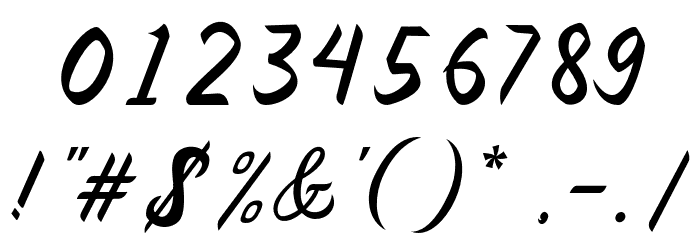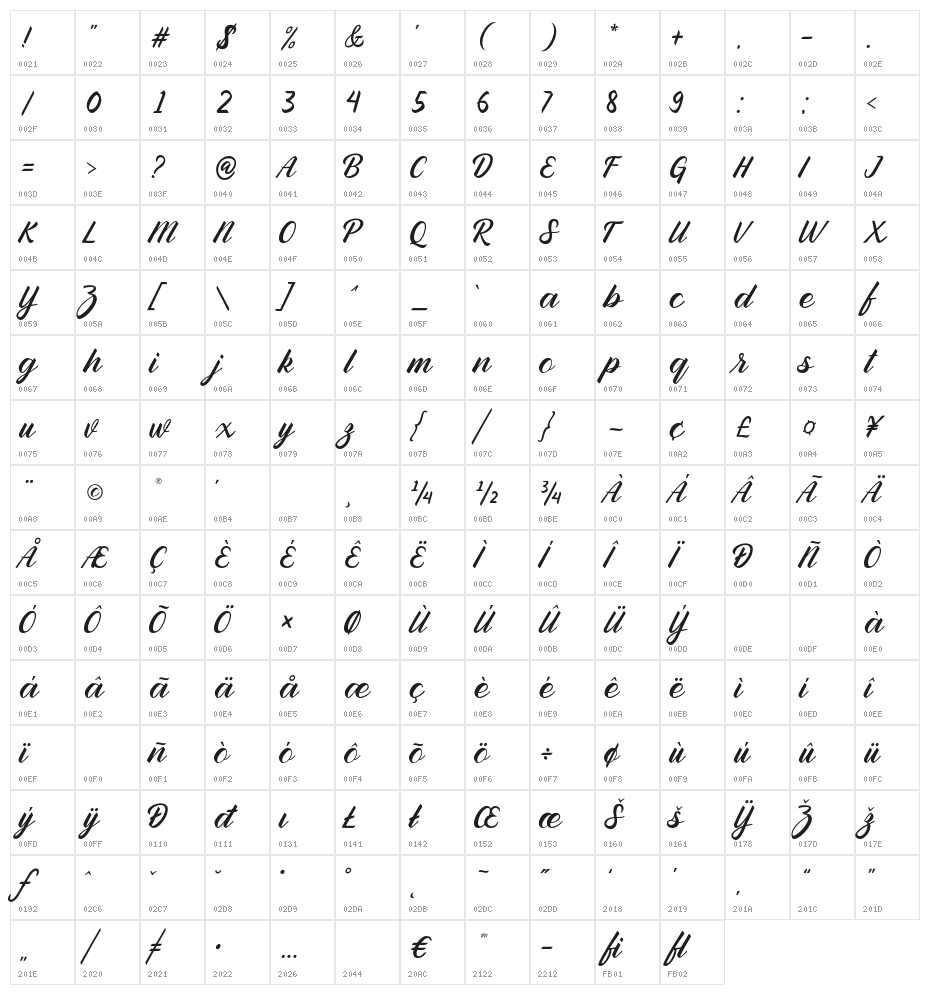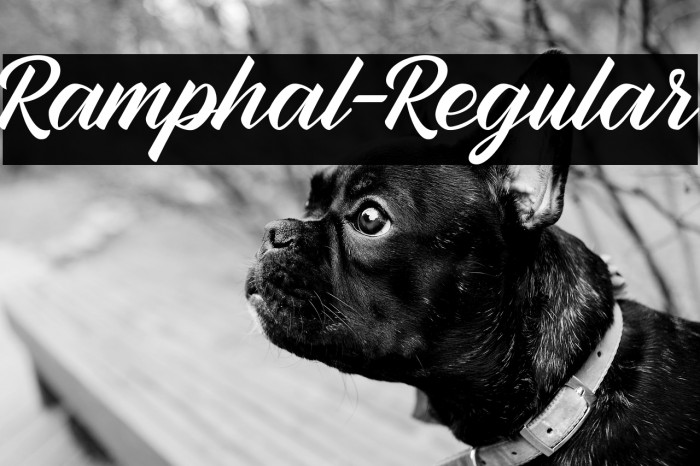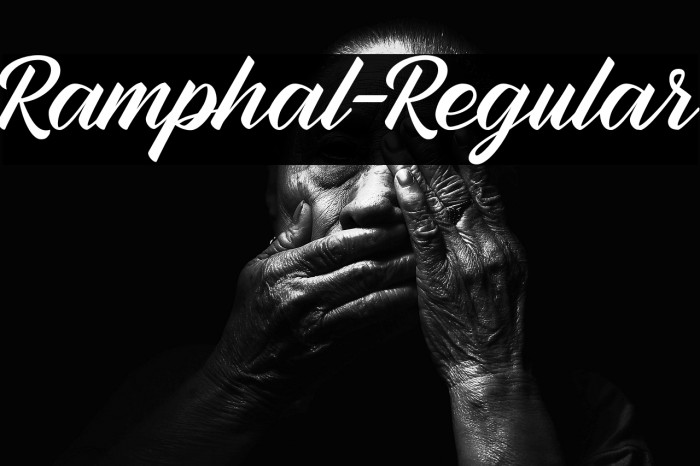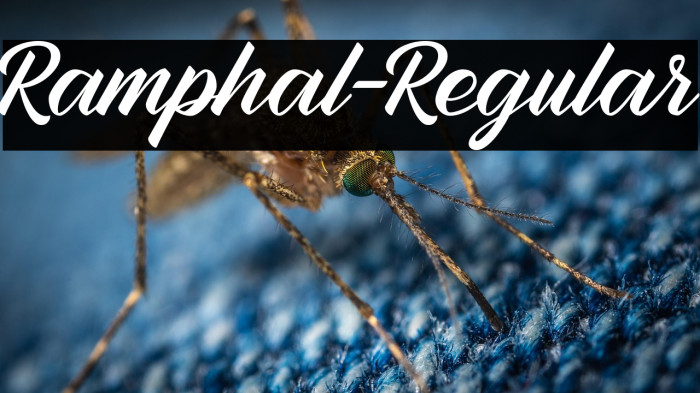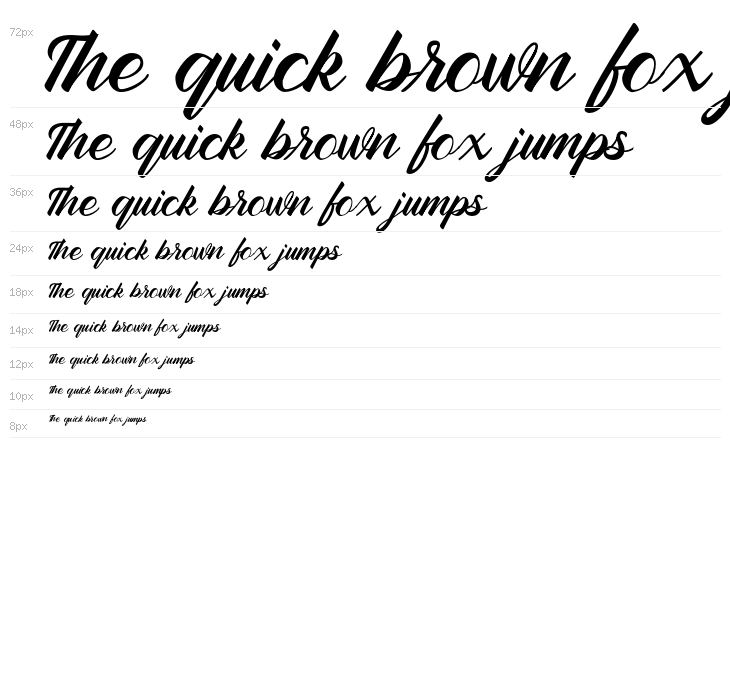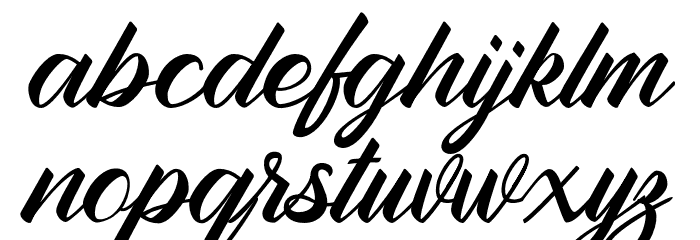
Ramphal-Regular Font
Ramphal-Regular Description
This font features a dynamic and flowing script style, characterized by its elegant and cursive letterforms. The uppercase letters exhibit a bold and confident appearance, with sweeping curves and a slight slant that adds a sense of movement. The lowercase letters maintain a consistent style, offering a harmonious blend with the uppercase. Numbers and special characters are crafted with the same fluidity, ensuring a cohesive look across all text. This font's design is both stylish and versatile, making it suitable for a variety of creative applications.
| Proposed Projects | Ideal for wedding invitations, branding, logo design, and elegant packaging. |